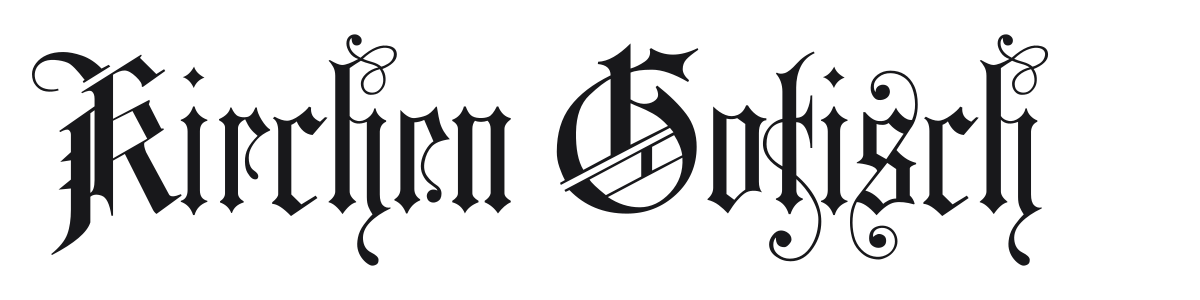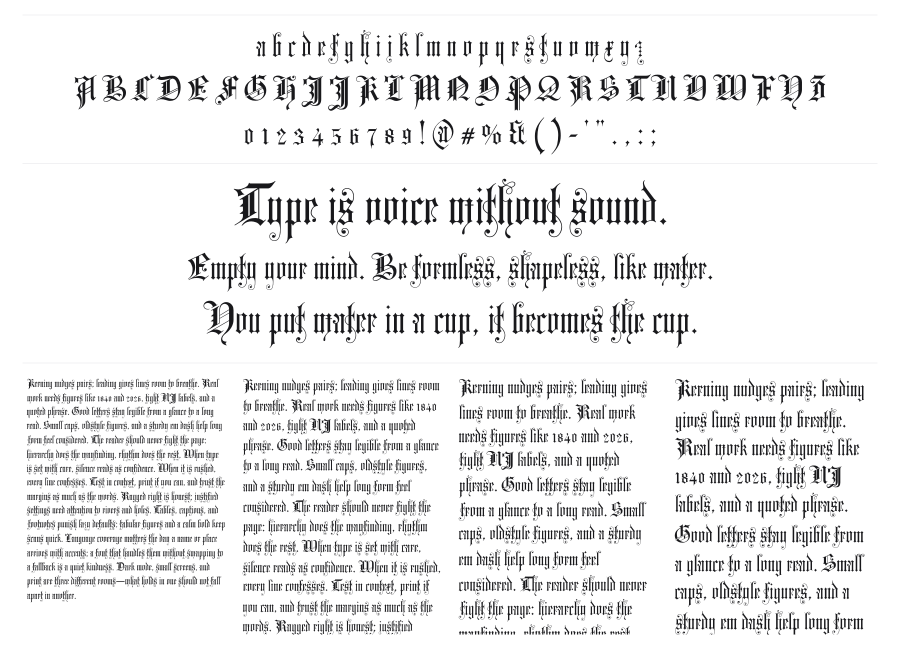
Kirchen Gotisch
by Torre de Prata
Kirchen Gotisch is a heavily ornamented Gothic blackletter rooted in the tradition of German church script. Spiral curl terminals and elaborate swash details push it well beyond a plain textura into ceremonial display territory. The dense weight and high stroke contrast make it commanding at large sizes.